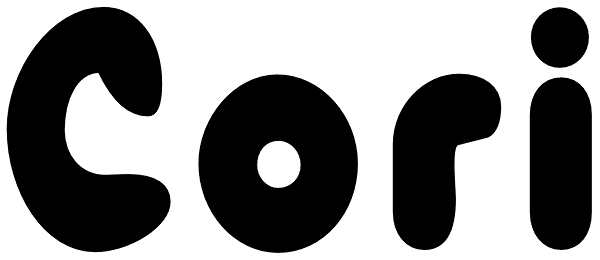
Cori
You wrote on your school notebooks, didn't you. Of course, just about everyone did. And those that didn't are probably in therapy trying to overcome the repression and guilt. Balloon letters are fun, easy to draw and have a light-hearted presence...
Cori
Cori Valentine